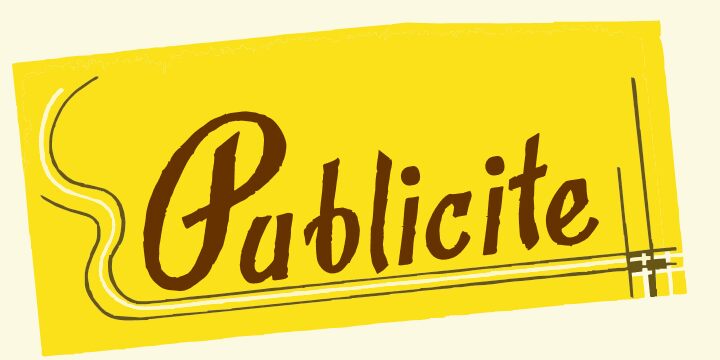
Publicite by Paulo W. is a free brush script with broad strokes and a theatrical sweep. Its letters jump between thick masses and fine cuts, ending in sharp, flicked points. Uneven edges keep the bite of wet ink.
Music posters and fashion branding gain a restless, hand-painted charge from these shapes. It also suits bar packaging and nightlife event graphics. Its natural audience is designers seeking raw, unruly lettering for youth and street culture.